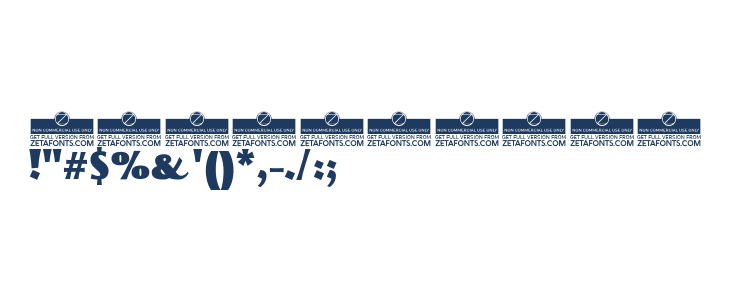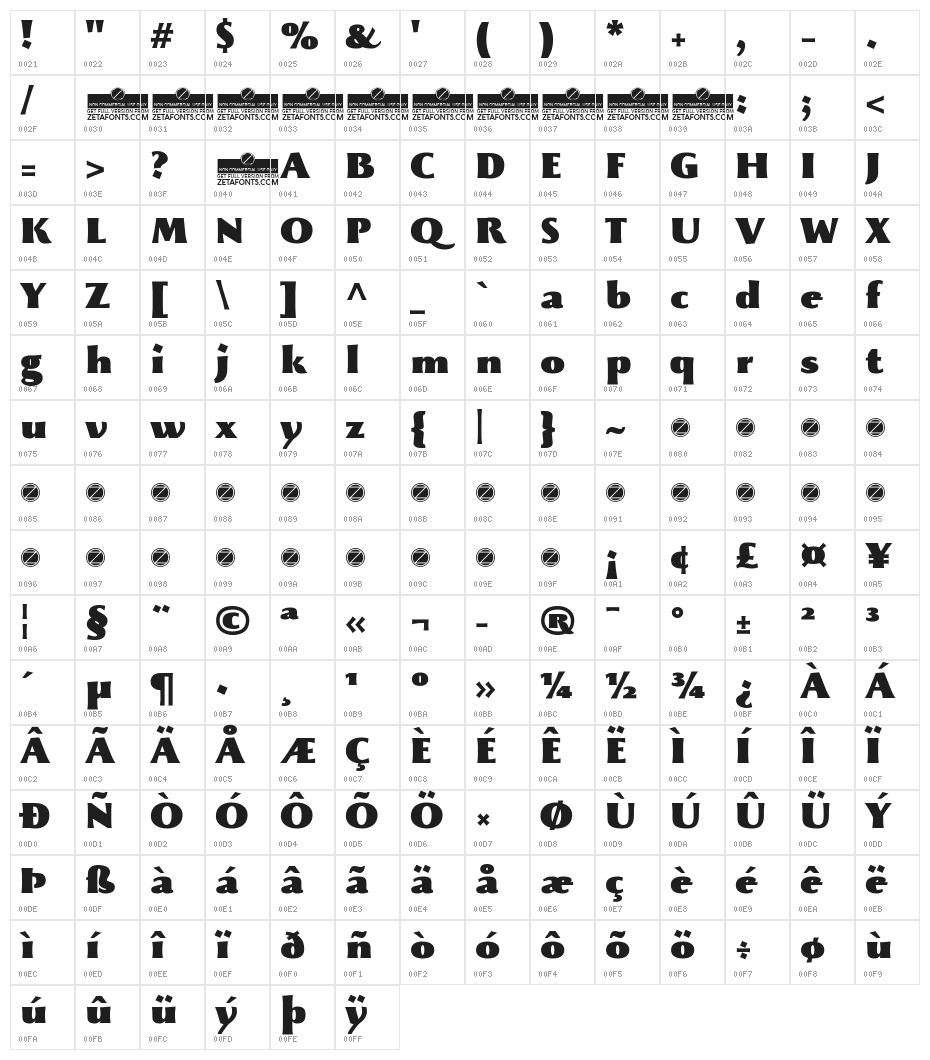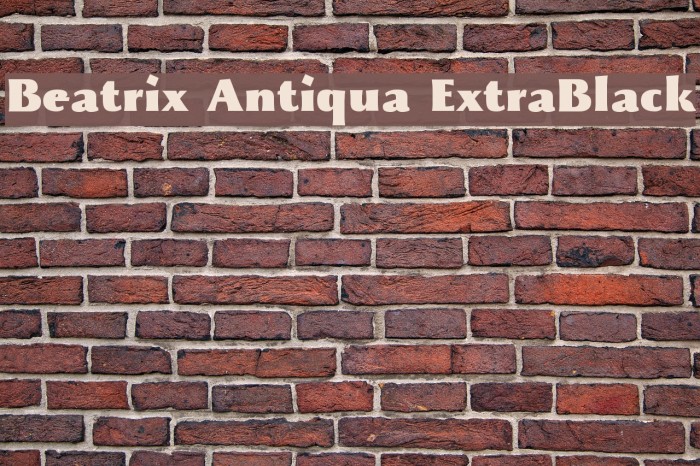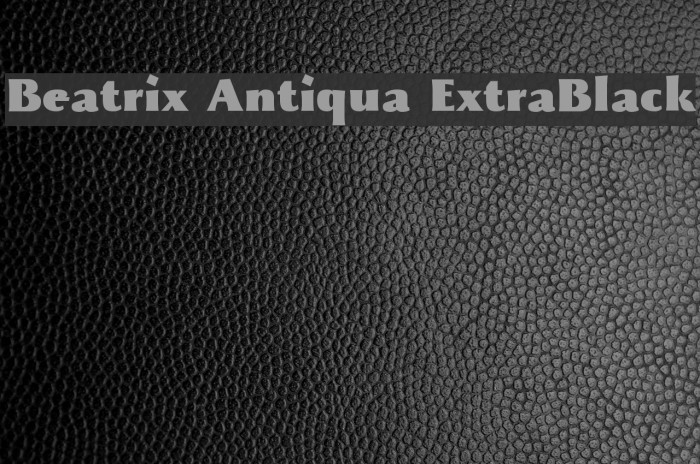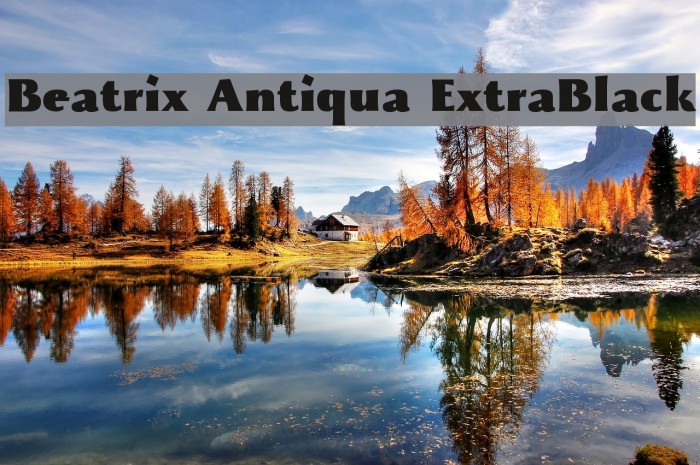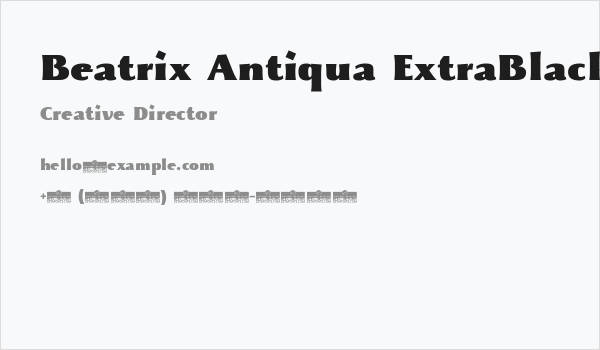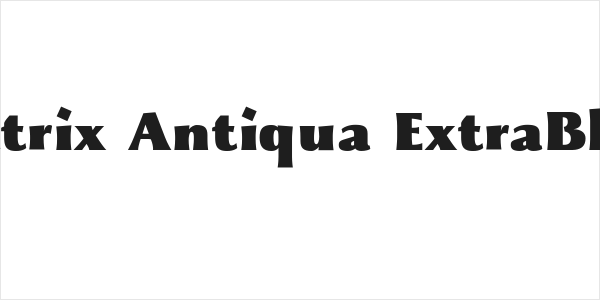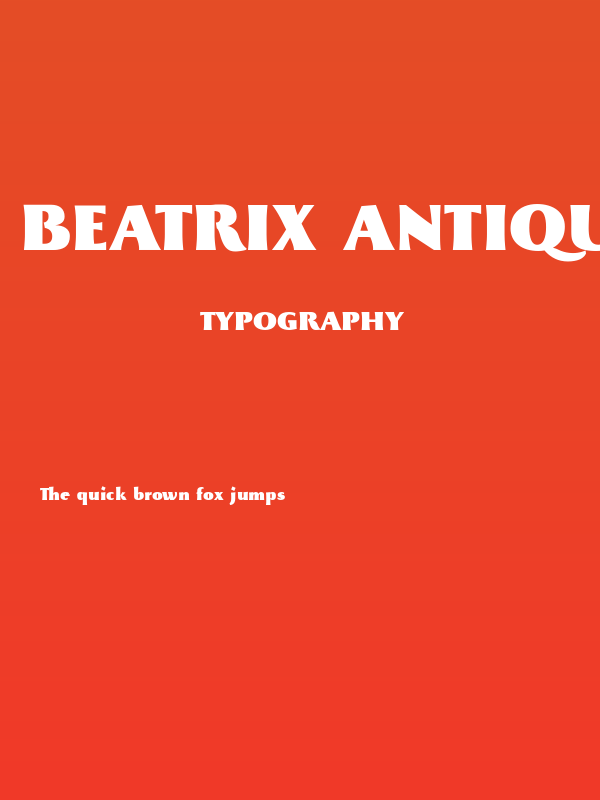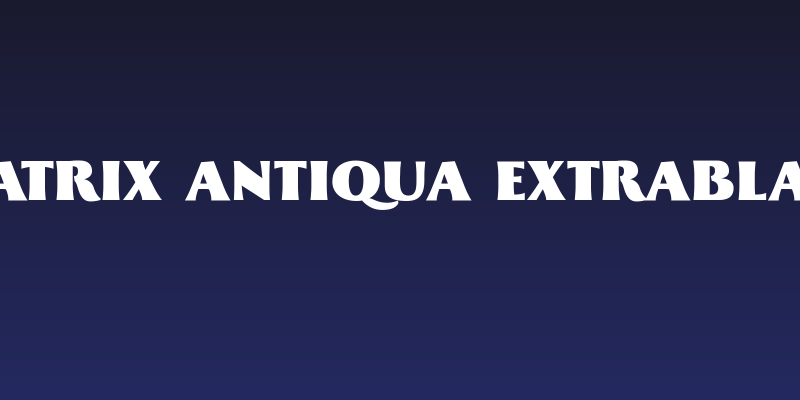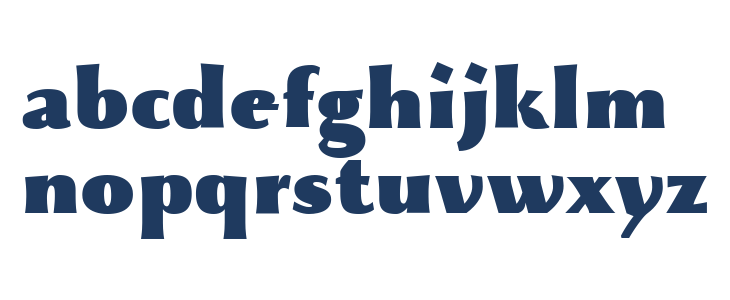
Beatrix Antiqua ExtraBlack Font
Beatrix Antiqua ExtraBlack Description
This font exhibits a bold and striking appearance, characterized by its thick strokes and high contrast between thick and thin lines. The serifs are pronounced, adding a touch of elegance and traditional flair. The overall design is robust, making it suitable for impactful headlines and titles. The uppercase letters are particularly commanding, while the lowercase letters maintain a consistent weight and style. The numerals and special characters are designed to match the boldness of the alphabet, ensuring a cohesive look across all text elements.